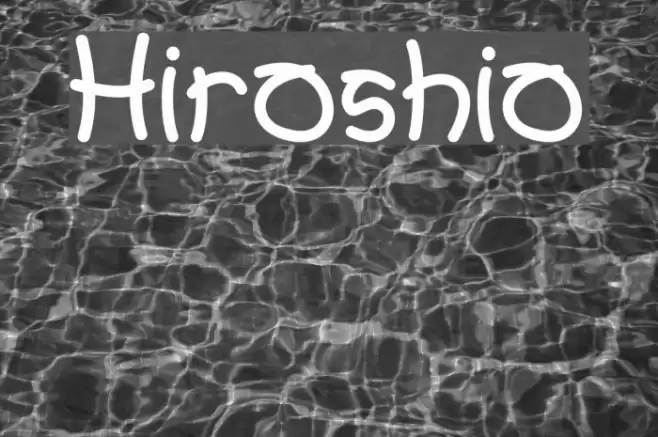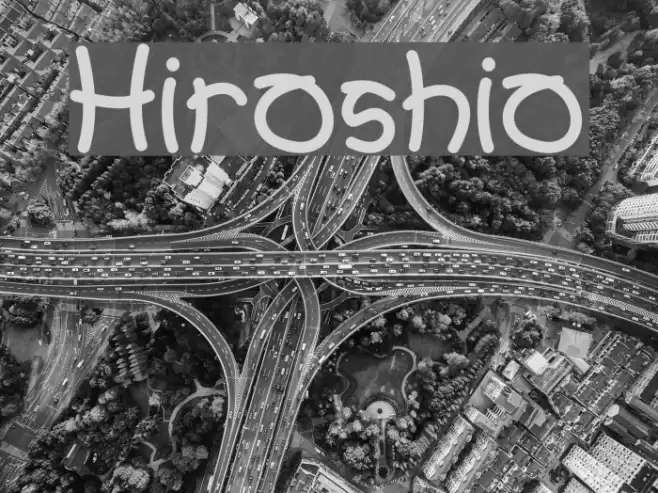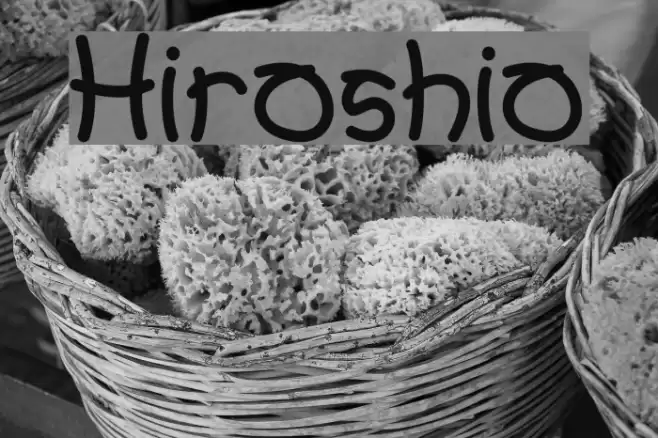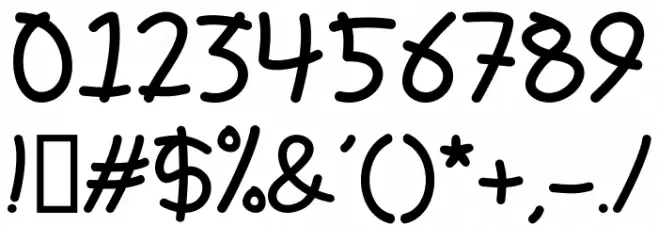
Hiroshio Font
Hiroshio Description
This playful and whimsical font features a handwritten style with a casual and friendly appearance. The letters are slightly irregular, giving it a unique and personal touch. The strokes are rounded and smooth, creating a sense of warmth and approachability. The font maintains a consistent weight throughout, with medium contrast between thick and thin strokes. It is well-suited for projects that require a fun and informal vibe, such as children's books, greeting cards, or creative branding. The character spacing is normal, allowing for easy readability while maintaining its charming aesthetic.
A playful handwritten font with a casual and friendly style from Uncategorized fonts.
- Proposed Projects: Ideal for children's books, greeting cards, creative branding, and playful designs.
- Overall Style: Playful
- Use Case: Headlines, Logos, Informal text